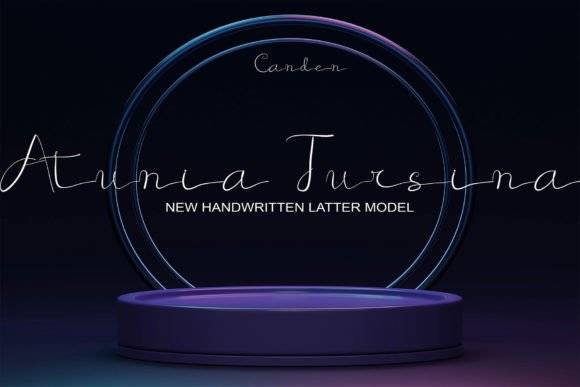
Atunia Tursina Font for Cricut, Silhouette and Printable Designs
Atunia Tursina is a digital font download designed with crafters and creators in mind. It features a balanced, elegant script style that's ideal for cutting machines and printable materials. As a font entity, it maintains legibility at small sizes while offering beautiful flourishes for personalized designs and decorative outputs.
Whether you're customizing tumblers, designing printable quotes, or building a boutique brand, Atunia Tursina offers smooth lines and reliable cut paths for flawless crafting experiences.
- Vinyl decals for mugs, walls, and windows
- Custom labels and product packaging
- Greeting cards, signs, and invitations
- Printable artwork and inspirational quotes
- Apparel designs and tote bag graphics
- Elegant curves and clean lines for easy cutting
- Perfect for both vinyl and printable projects
- Beginner-friendly with a polished finish